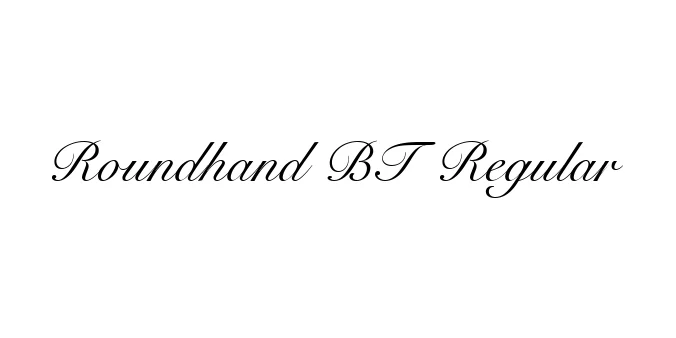
Roundhand BT Regular
Designed by Matthew Carter
Roundhand BT is a classic script typeface designed by the renowned typographer Matthew Carter for Bitstream. The design is based on the elegant copperplate calligraphy of Charles Snell, an English writing master from the 18th century. It captures the rhythmic, flowing motion of a quill pen, featuring distinct contrast between thick and thin strokes and sophisticated flourishes that define the English Round Hand style.
This typeface is celebrated for its formal elegance and timeless appeal. Unlike more modern, casual scripts, Roundhand BT maintains a disciplined structure that conveys authority, tradition, and luxury. It has become a staple in the world of high-end typography, often utilized for projects that require a touch of historical class and refined craftsmanship.
Roundhand BT Regular Best Uses
Exquisite for invitations, RSVP cards, and formal envelopes.
Ideal for high-end product logos, jewelry packaging, and boutique signage.
Adds a prestigious and official feel to diplomas and awards.
Perfect for digital or printed letters requiring a sophisticated touch.